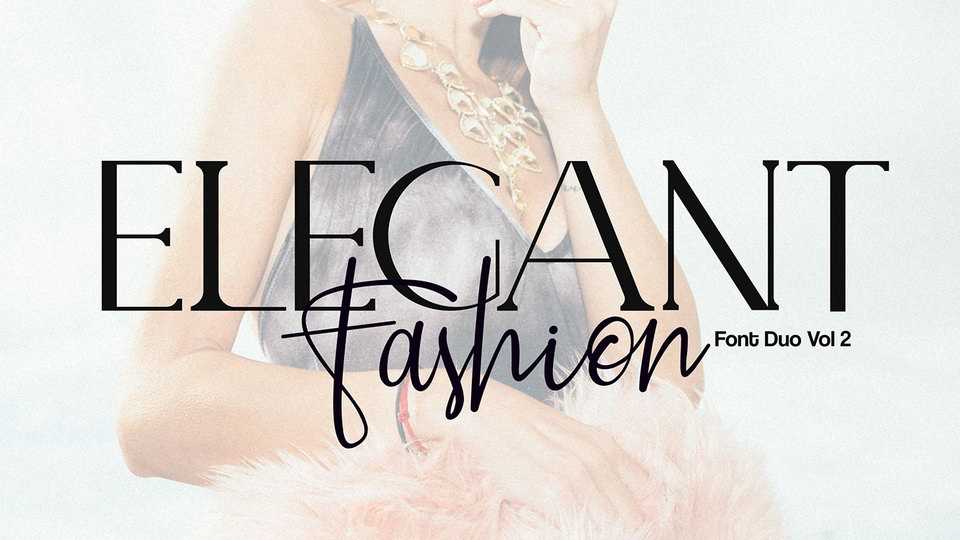
Elegant Fashion Font Duo › Fontesk – Download Grátis
Download Elegant Fashion, a beautiful font duo, featuring an elegant script, and a striking serif which can be combined perfectly. Great for wedding invitations, advertisements, banners, books, business cards, signatures, and others who want a natural handwritten font type.
Designer: FallenGraphic Std